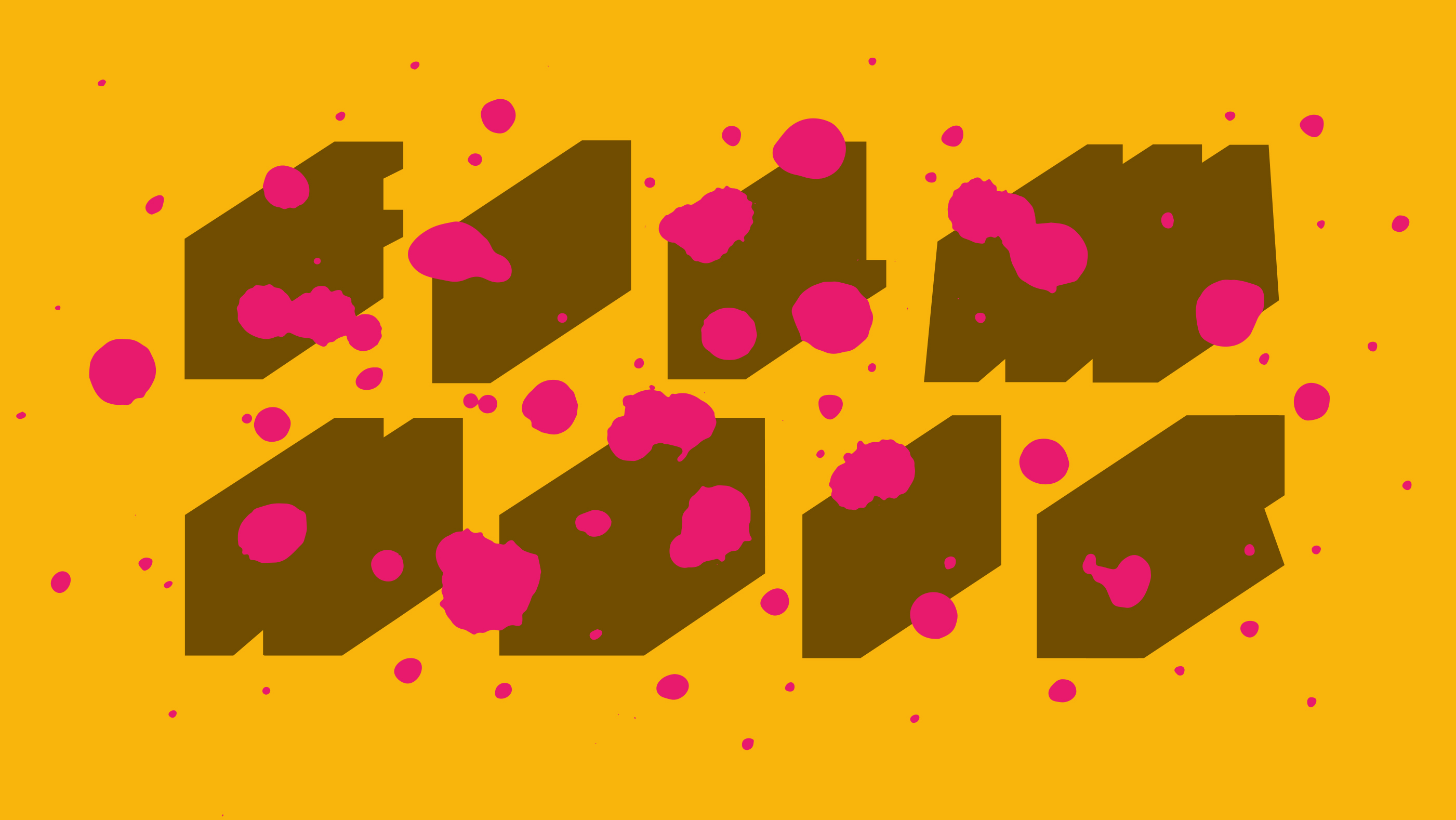
Film Noir
Inspired by one of my favorite movie genres, this design reinterprets the bold lettering of classic movie posters. I replaced the traditional colors with a more vibrant palette, creating a stylish and mysterious atmosphere.